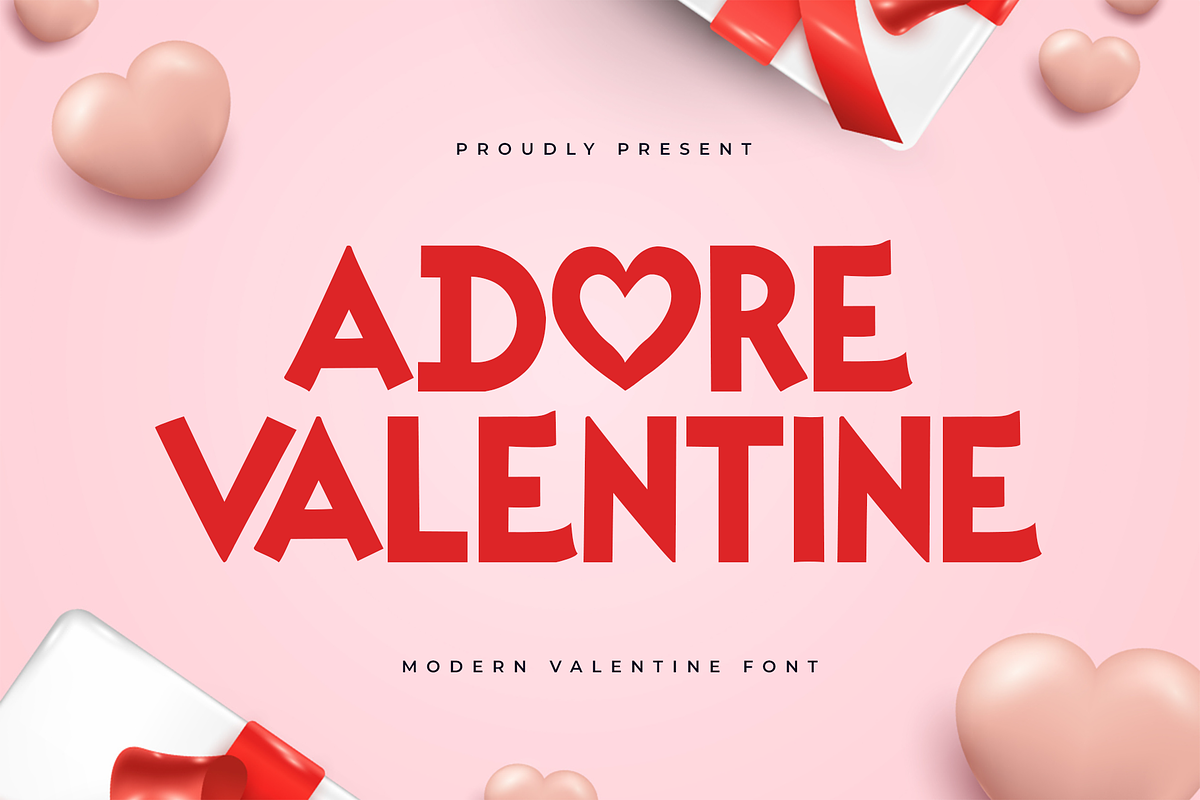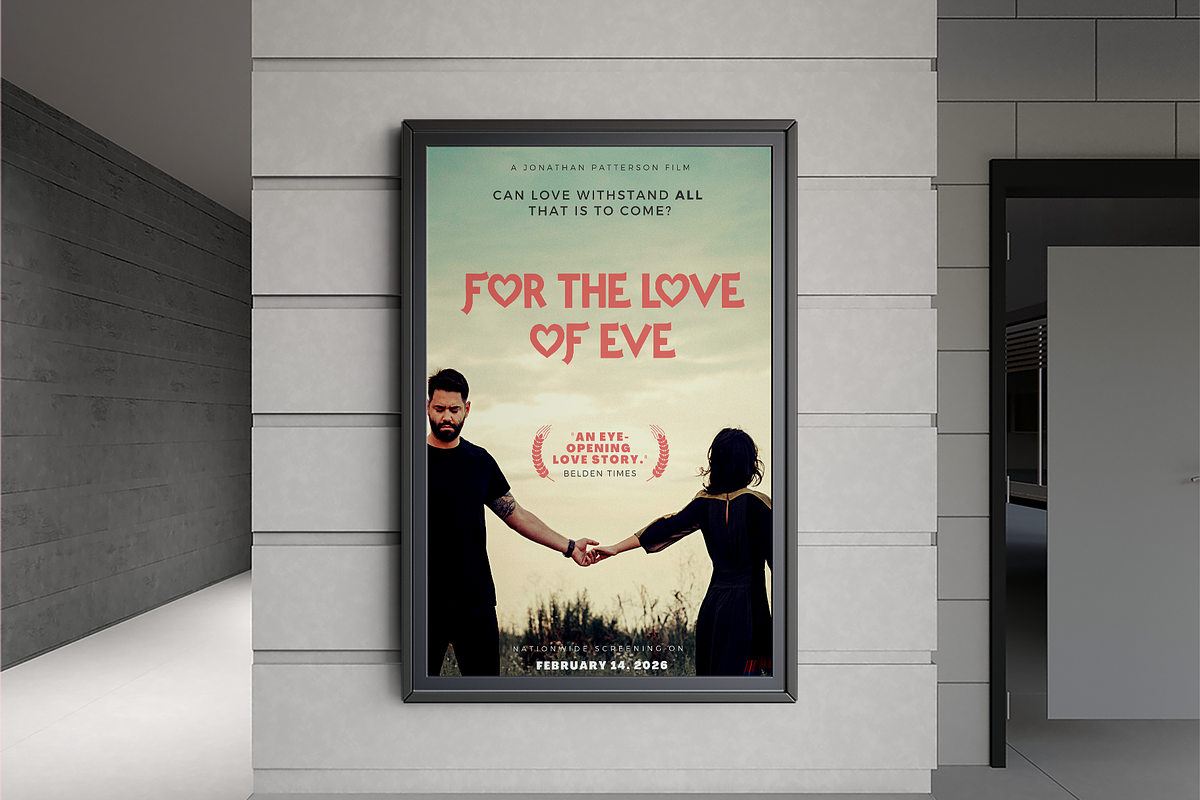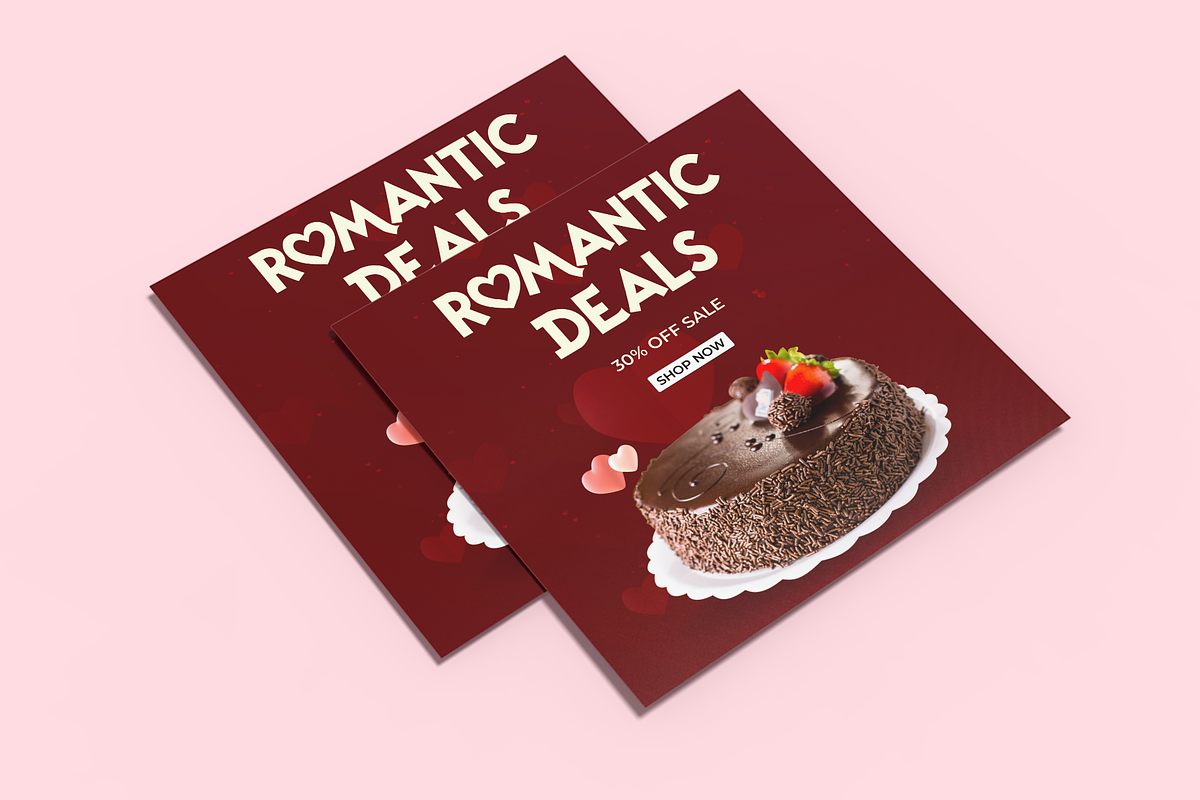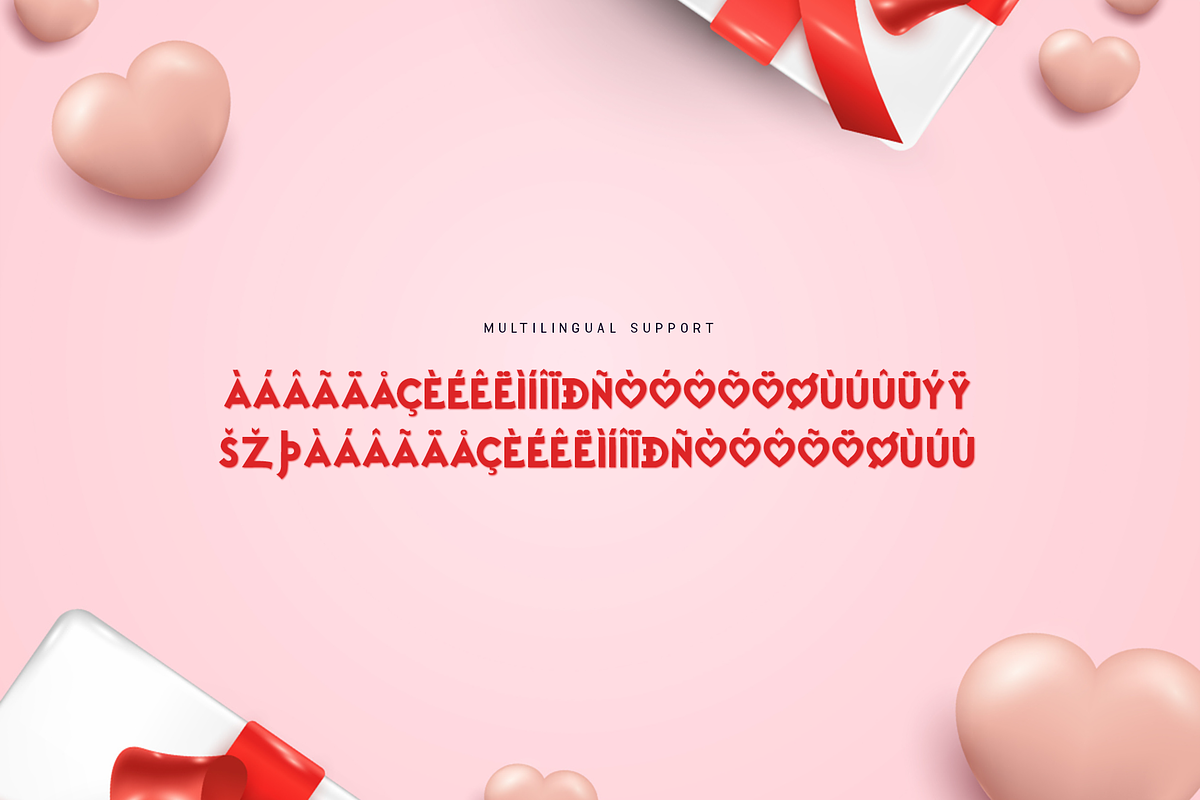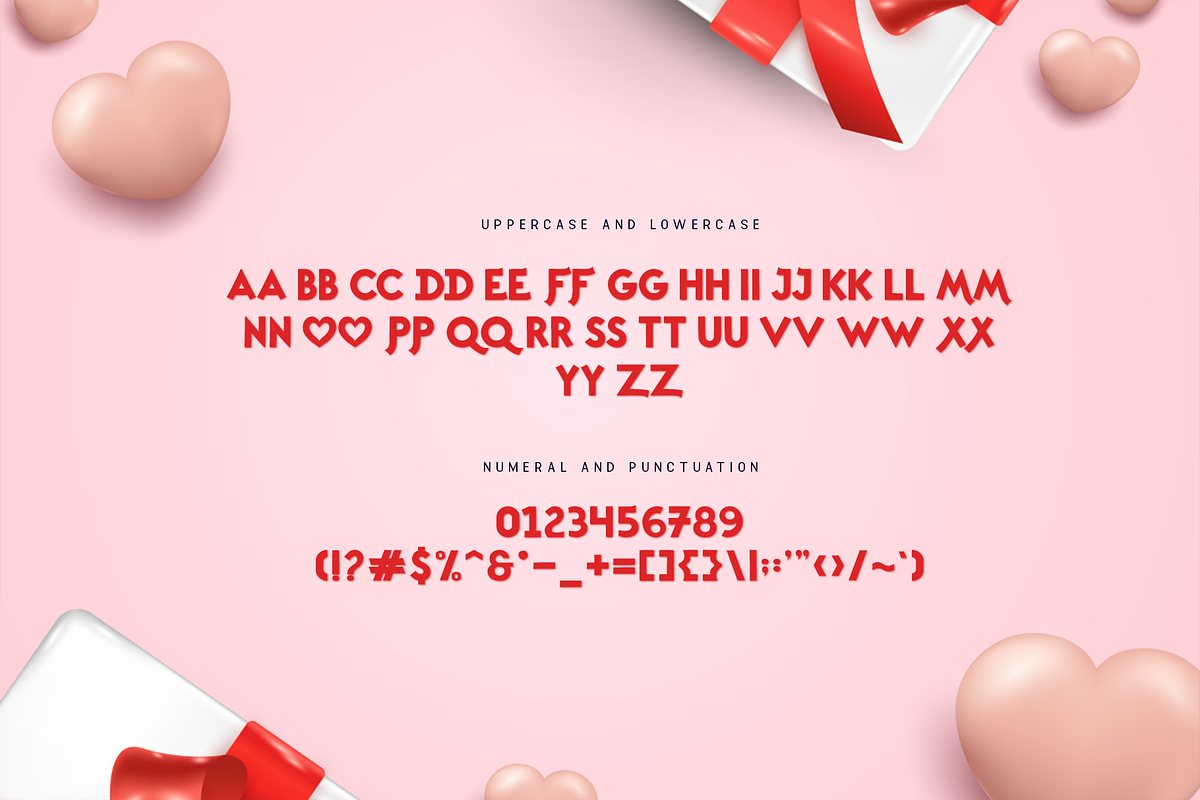
Adore Valentine - A Modern Valentine
Adore Valentine - A Modern Valentine Font
Fall in love with Adore Valentine, a modern font that blends contemporary elegance with a touch of romantic charm. Its clean design and stylish details make it perfect for all things love-related.
From Valentine’s Day cards to branding, invitations, and more, Adore Valentine adds warmth and sophistication to your projects. Its versatility ensures it shines across both digital and print media.
Complete with a full character set, multilingual support, and unique alternates, Adore Valentine is your go-to font for expressing love with style.